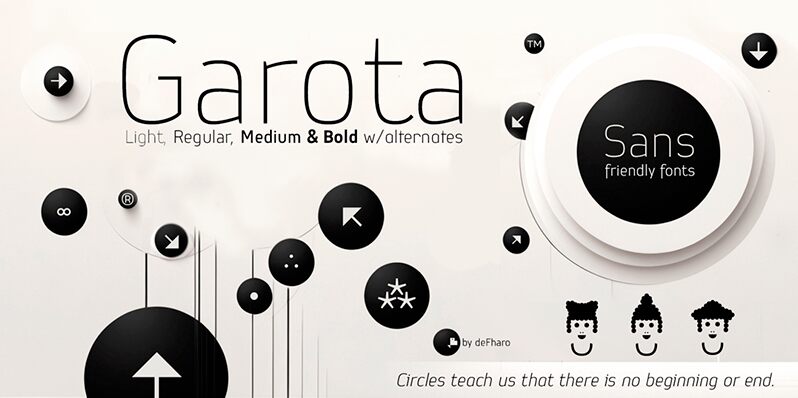
Garota Sans Bold Italic
Garota Sans Bold Italic font by Fernando Haro of deFharo is a lively sans serif typeface combining modernity with a friendly look. Legibility is enhanced thanks to the geometric body which makes reading effortless even in small sizes.
Clean and professional branding is one of the top use cases for this free professional font. The trendy rounded design works just as well on websites where readers would enjoy browsing blogs, landing pages, and online shops. Other possible uses that elevate the typography level include apps, social media posts, educational books, magazines, packaging labels, cover designs, posters/ads within and outside public transport means.
Garota Sans Italic is distinguished by its slightly narrow proportions and generous metrics. Every detail has been carefully adjusted to ensure a smooth and clear reading experience. The kerning has been meticulously configured, providing space and a consistent, easy-to-follow reading rhythm, which is essential for both long texts and impactful headlines.
The typeface family consists of 12 fonts distributed across four weights (Light, Regular, Medium, and Bold) and three styles (Roman, Italic, and Small Caps). This versatility allows for its use in a wide range of applications, from editorial and advertising projects to posters, magazines, or videos.